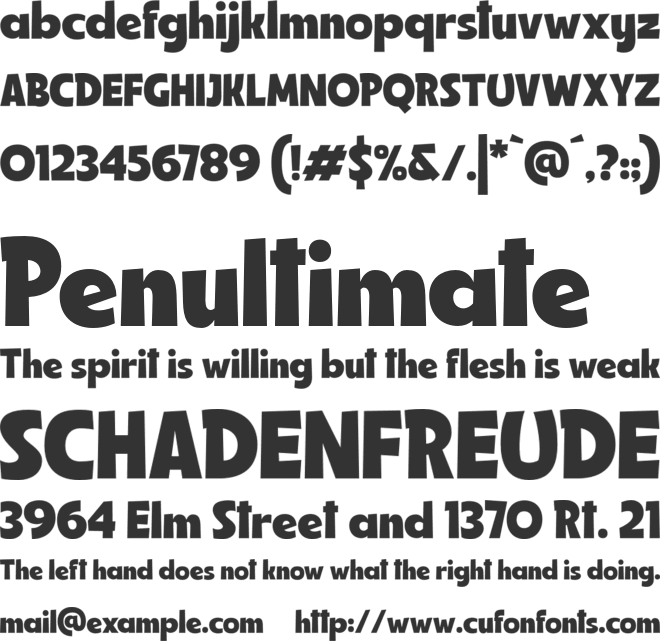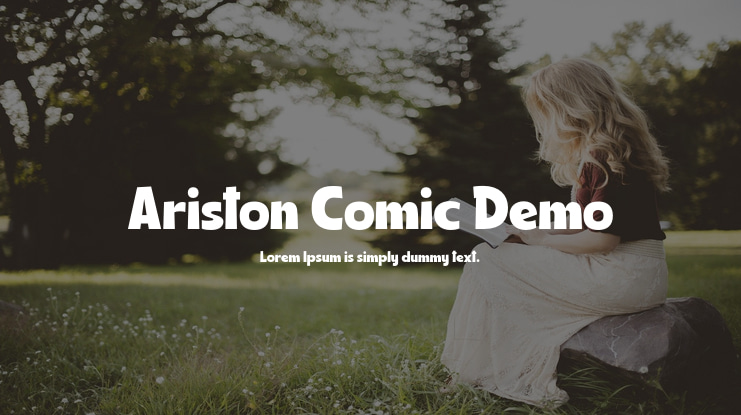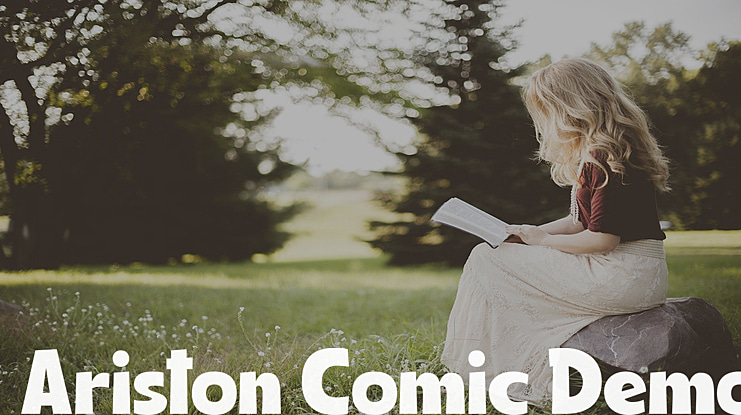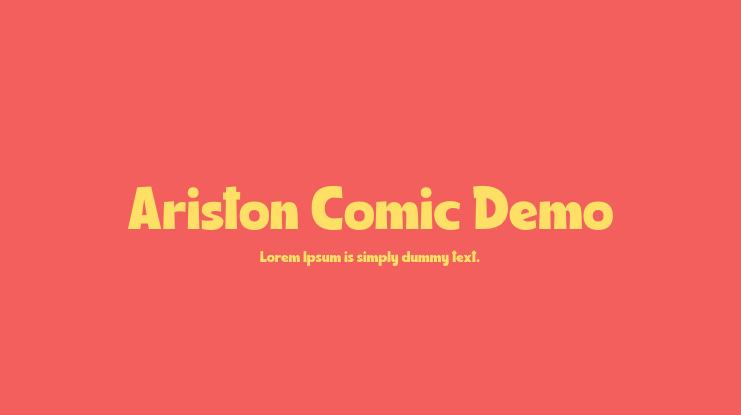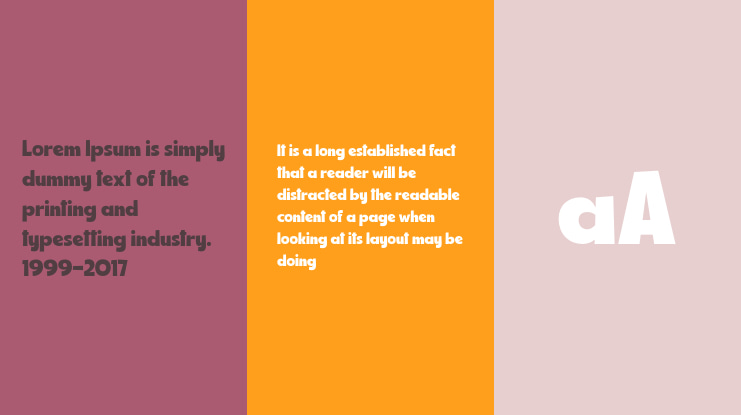
Ariston Comic Demo Font
Ryan Prasetya
Ariston is a new layered font, created for fun and for funny moment. This font created special for kid or youth tittle. If you're kid content creator this font is very suitable for you. All features like layer, multilingual support and others available on full version. Please drop me an message or email for any furter information email  Thanks!
Ariston Comic Demo font preview